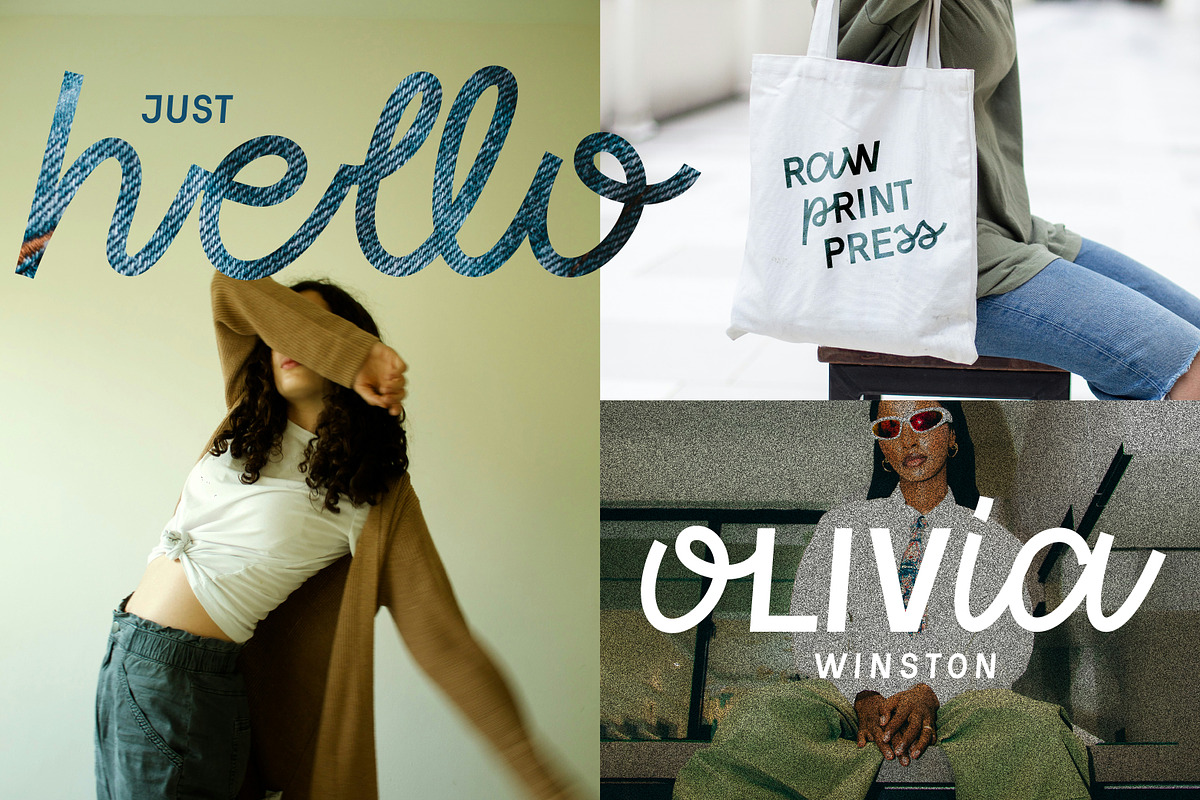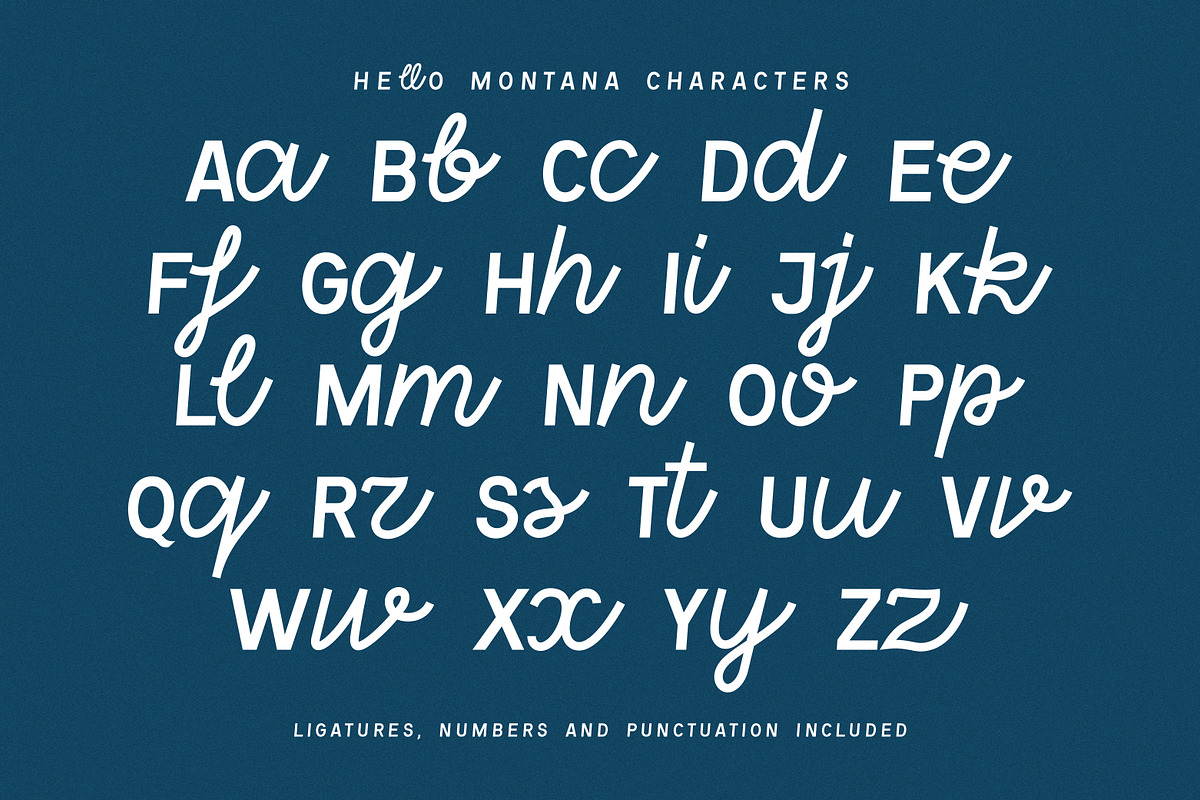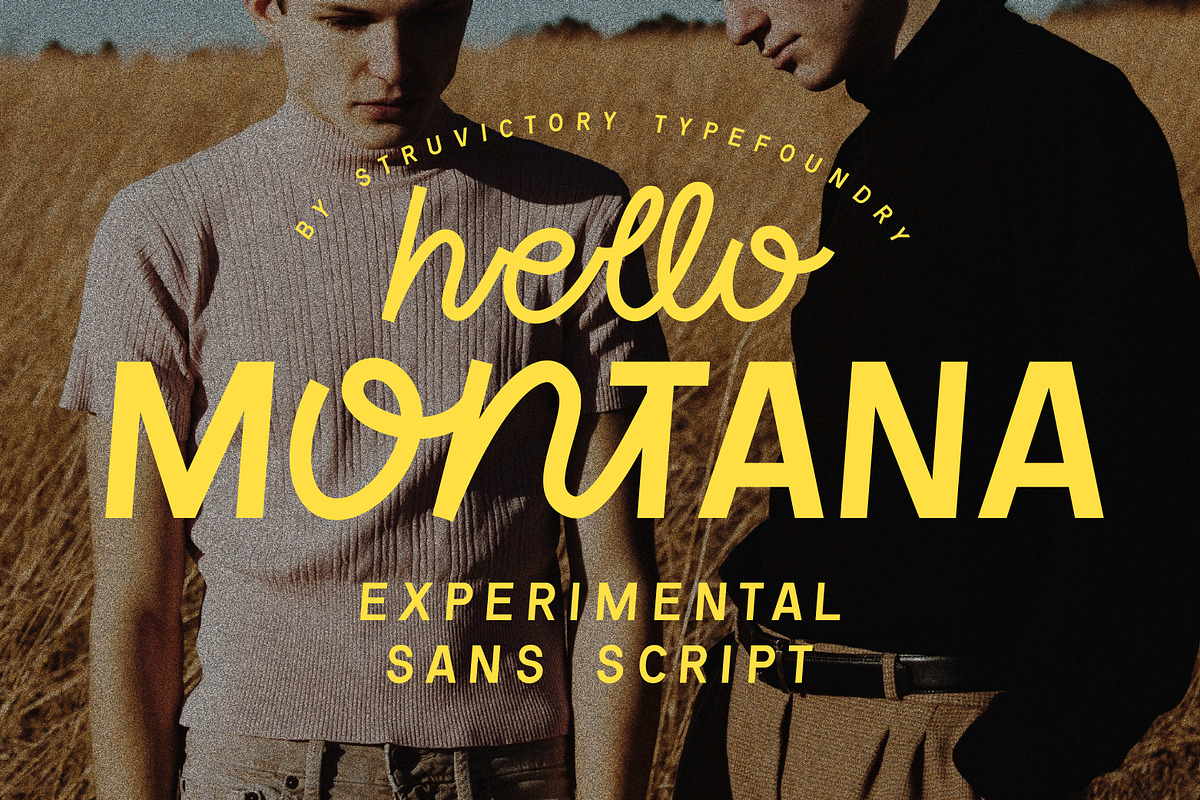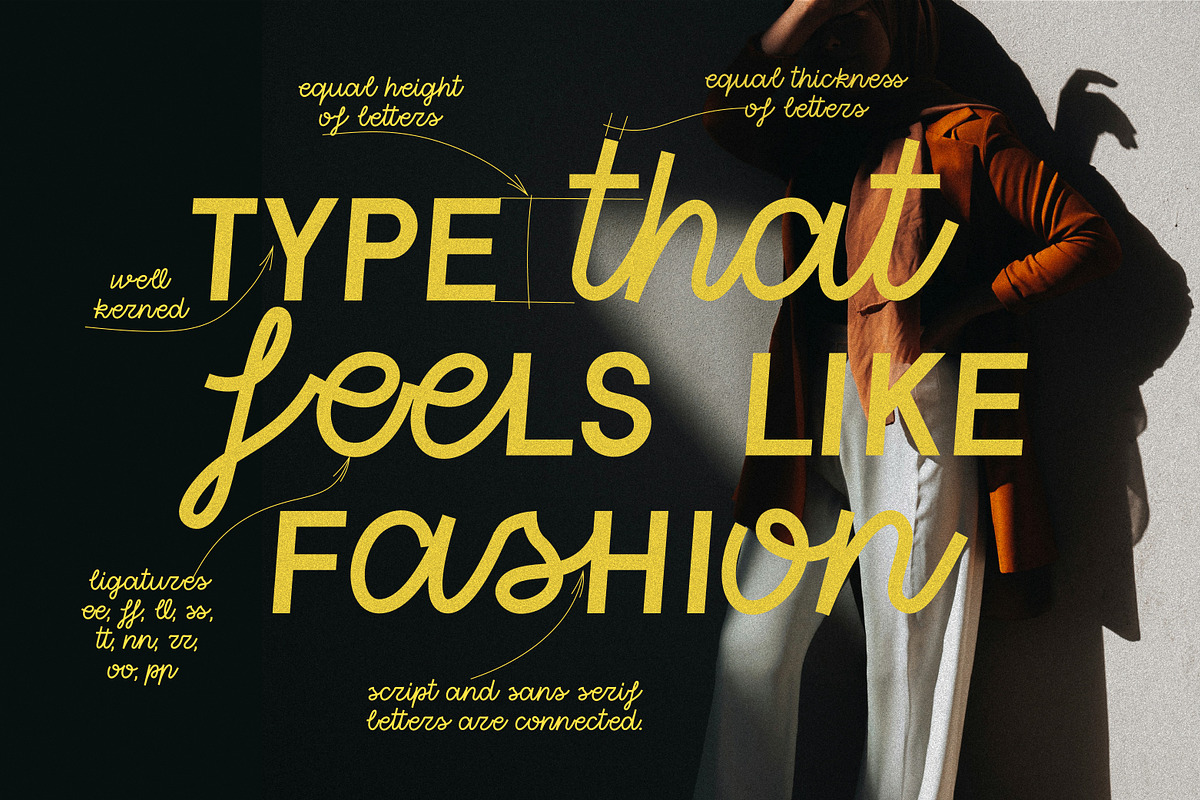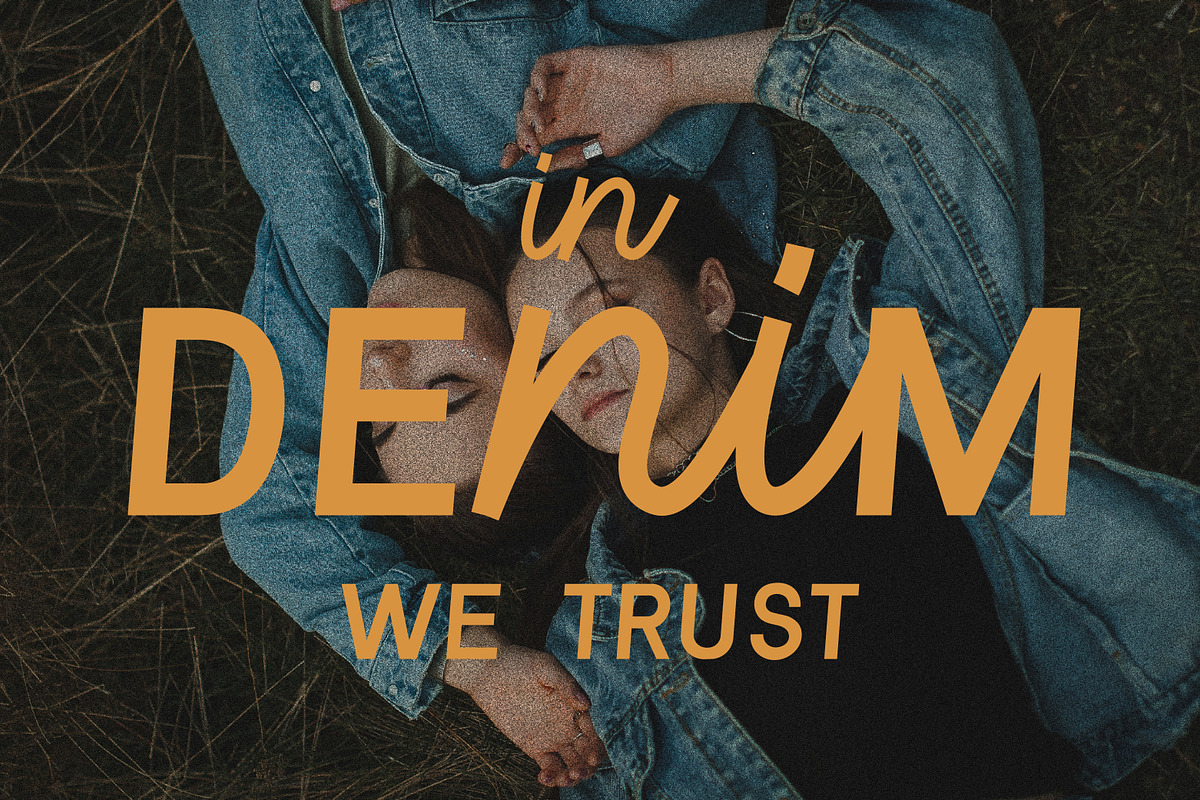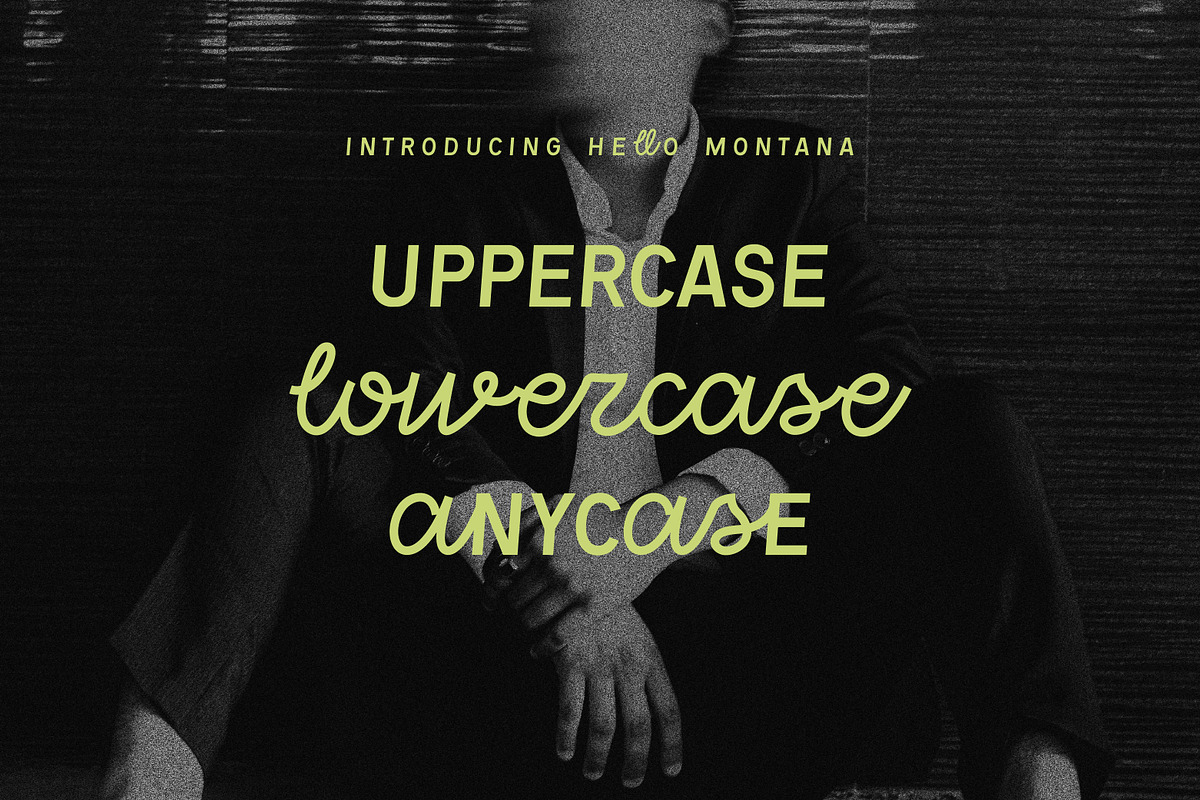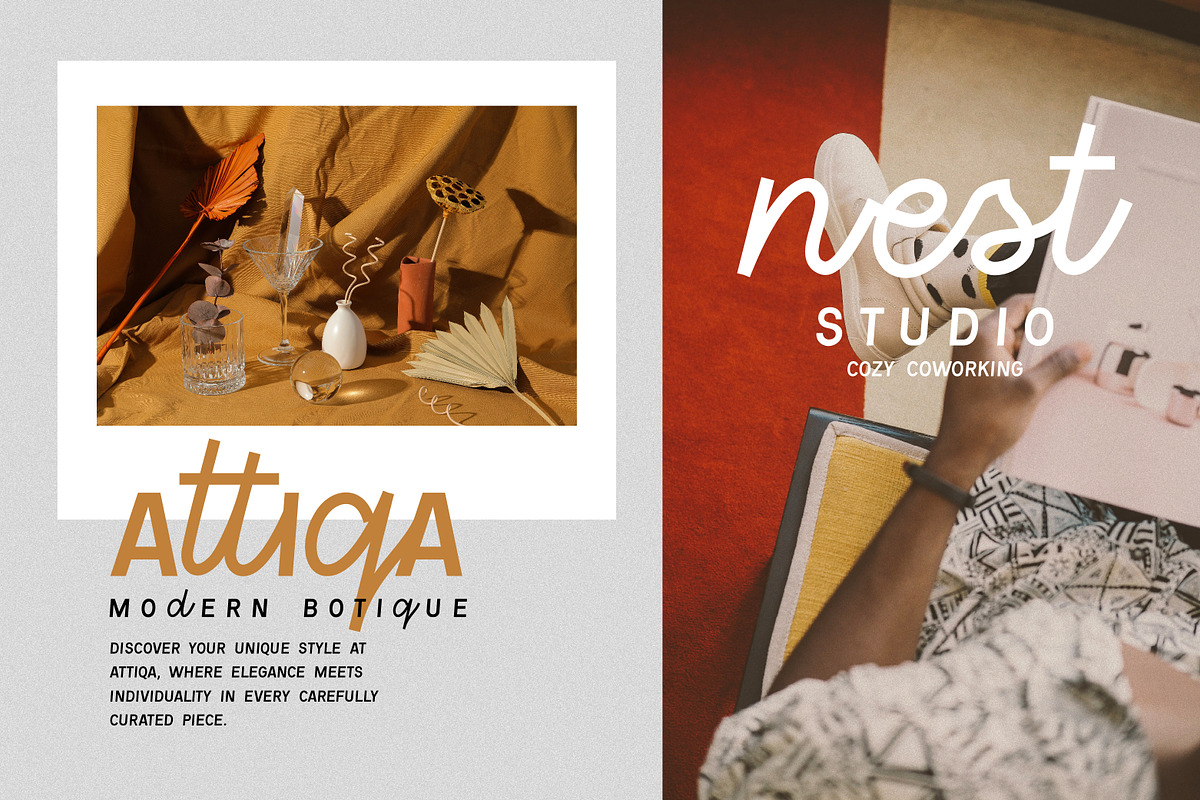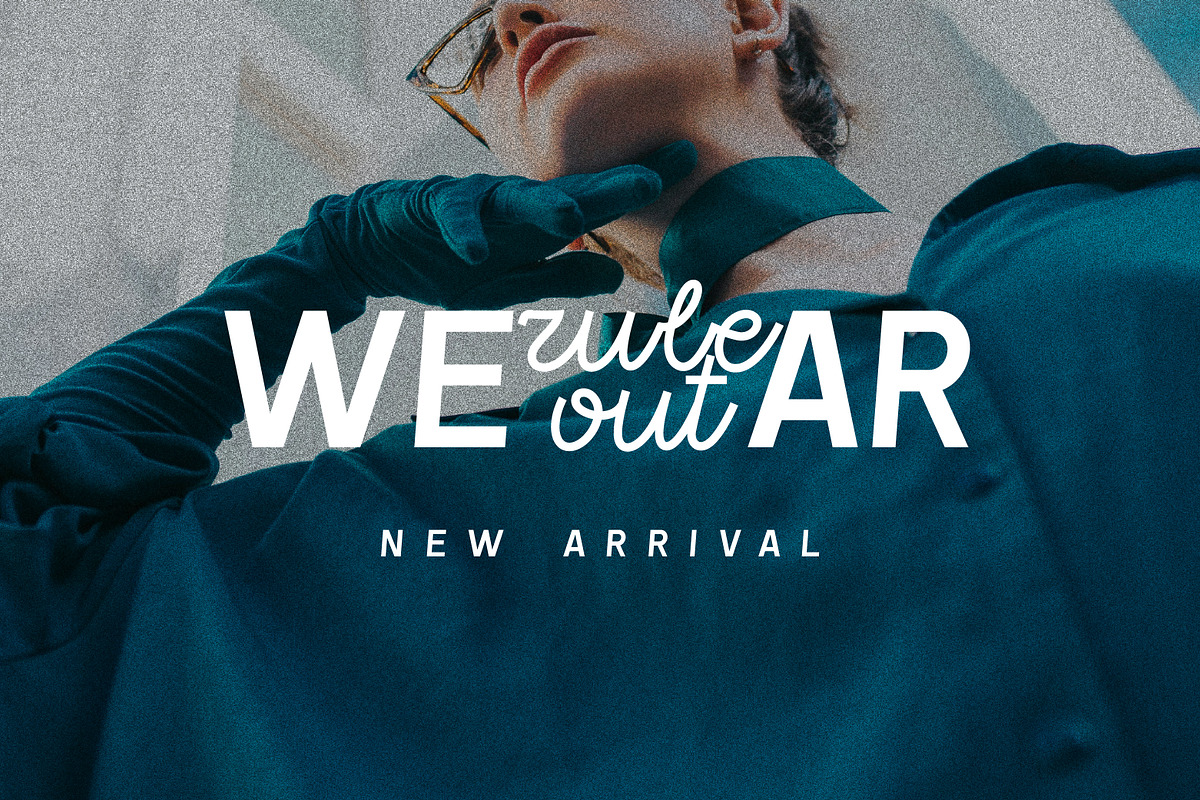
Hello Montana Semi Sans Script Font
Meet Hello Montana – where style meets character. This experimental semi-sans script blends bold uppercase with fluid, handwritten lowercase, creating a dynamic contrast that feels both modern and expressive. Its organic curves and slightly playful strokes make it perfect for fashion branding, editorial design, packaging, and creative campaigns. Whether you're crafting a stylish logo or a statement tagline, Hello Montana brings warmth, personality, and a touch of effortless elegance. Numbers and punctuation included, the font is well kerned. – ready for your next design adventure! There are ligatures oo, tt, ff, ee, ll, nn, oo, pp, rr.